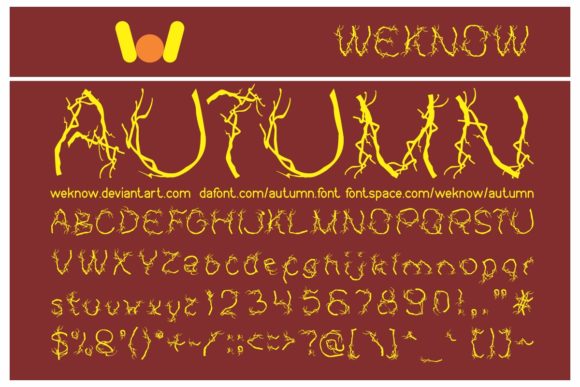
The Magic of Autumn Font: A Designer’s Delight
I’ll never forget the design project that led me to discover the enchanting Autumn Font. I was working on a fall-themed branding campaign for a local craft brewery, and I was struggling to find the perfect font to capture the essence of the season. That’s when I stumbled upon Autumn Font, and it was love at first sight! ✨
Inspired by the abstract shapes of trees and twigs in autumn, this playfully conceptual display typeface font is a true showstopper. Its eclectic beauty makes it perfect for a wide range of contexts, from bold headlines to creative craft projects.
- ✨ Unique and eye-catching design that’s sure to turn heads
- ✅ Highly versatile and adaptable to various design contexts
- ✅ Well-crafted and attention to detail in every glyph
- ✅ OpenType features that allow for creative experimentation
While Autumn Font is an amazing design asset, there are a few things to keep in mind: 🤔
- ⚠️ Some characters may be a bit tricky to read at smaller font sizes
- ⚠️ Limited support for non-English languages
The Designer Inspiration Behind Autumn Font
According to its creator, Autumn Font was inspired by the abstract shapes and organic beauty of trees and twigs during the autumn season. The designer aimed to capture the essence of this fleeting moment in a font that’s both playful and sophisticated.
Q: What is Autumn Font’s personality?
A: Autumn Font is a playful, conceptual display typeface font with an eclectic and abstract personality.
Q: What are Autumn Font’s OpenType features?
A: Autumn Font features a range of OpenType features, including stylistic alternates, glyphs, and ligatures.
Q: Is Autumn Font suitable for body text?
A: While Autumn Font is primarily designed for display use, it can be used for body text in certain contexts, but may be more challenging to read at smaller font sizes.